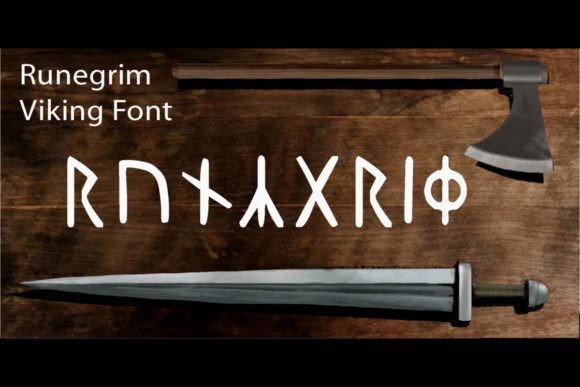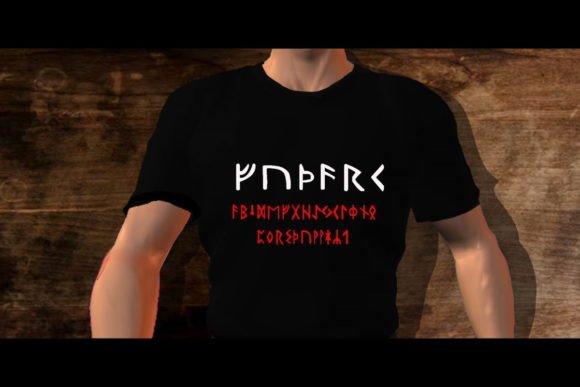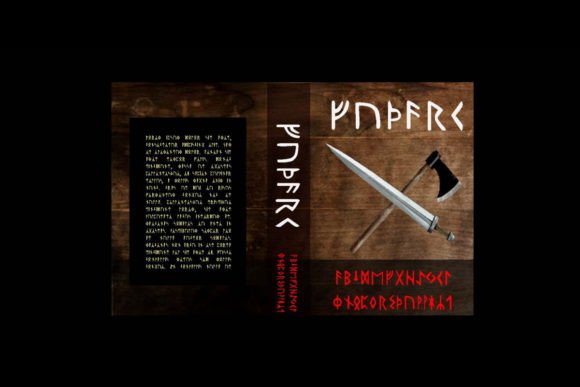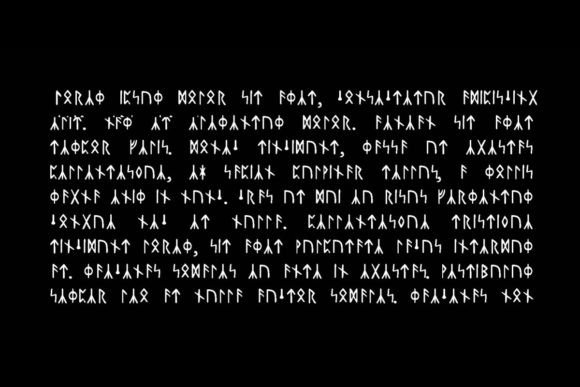
Runegrim Font: Ancient Viking Script for Unique DIY & Craft Designs
About the Runegrim Font
Introducing the Runegrim Font, a beautifully crafted typeface designed to elevate your creative projects. “Runegrim” is based on Ancient Viking Rune Script. This font is best for Clothing, apparel, and any handicraft. This font is Very useful for people who are not familiar with the Unicode format of ancient font.
Runegrim’s strong, angular forms make it ideal for headlines, logos, and short, impactful text on packaging or posters. Its historical inspiration lends itself well to projects with a heritage or folklore theme. Avoid using it for body text or lengthy paragraphs; its unique character makes it less legible for extended reading.
The font’s personality is bold and assertive, conveying a sense of history and strength. This makes it suitable for brands focused on adventure, craftmanship, or mythology. Pair it with a clean sans-serif like Montserrat for contrast or a more traditional serif such as Garamond for a classic, balanced feel. Avoid pairing it with overly playful or decorative fonts.
Consider using a simple, neutral sans-serif font for supporting text to maintain readability while preserving the Runegrim’s visual impact. A subtle script font could be used for smaller details to add a touch of elegance, but maintain a consistent weight and size for balance.